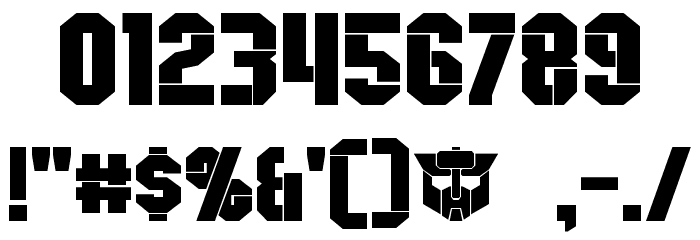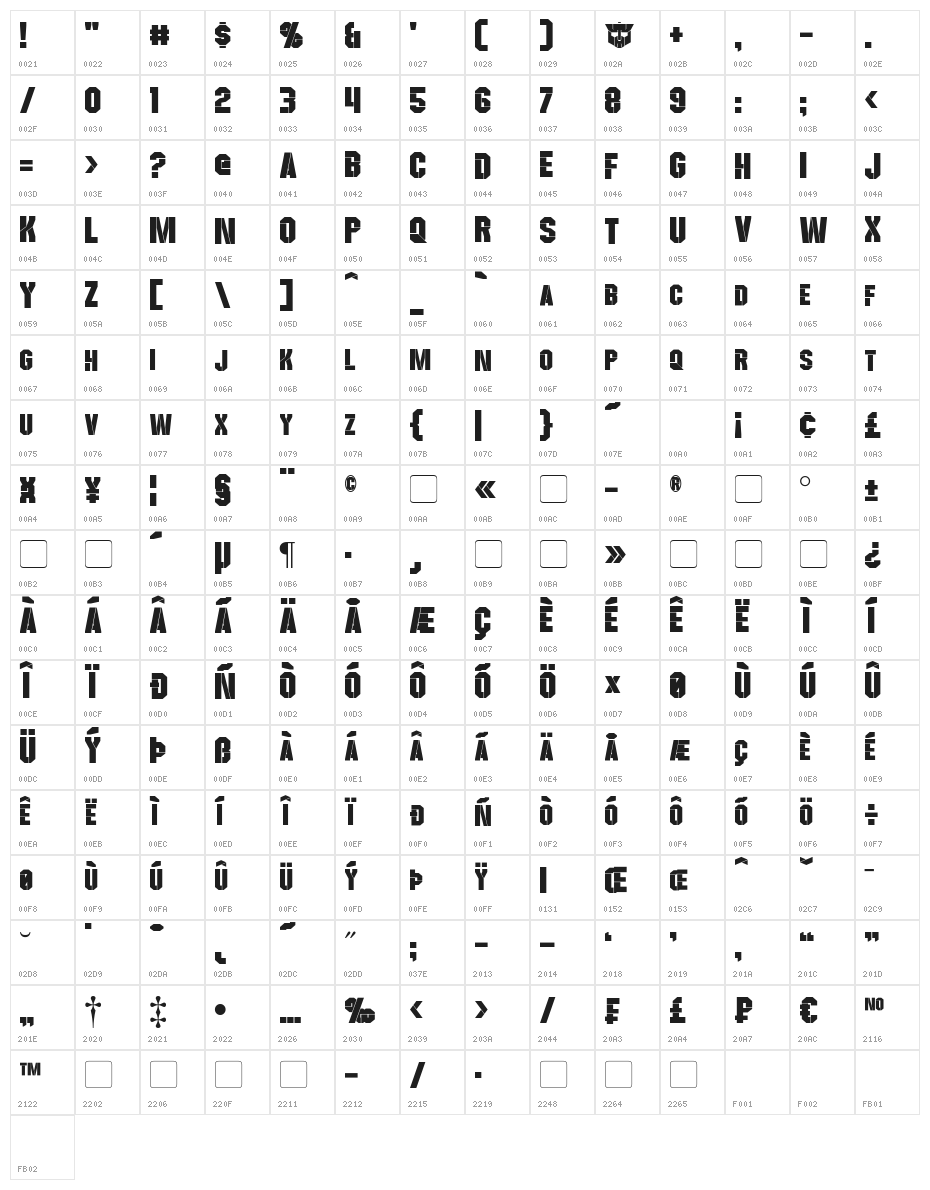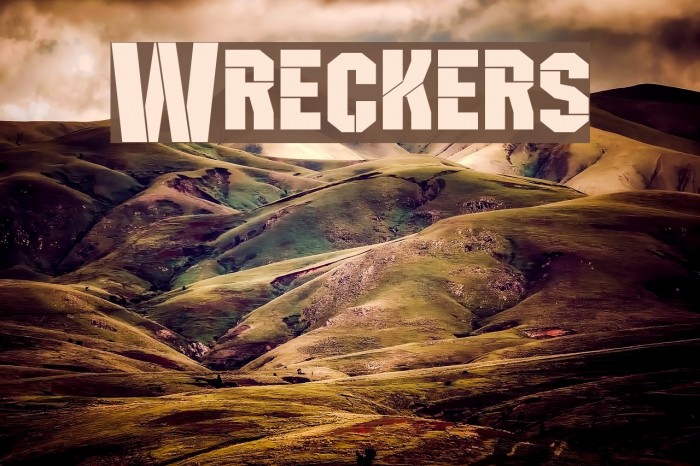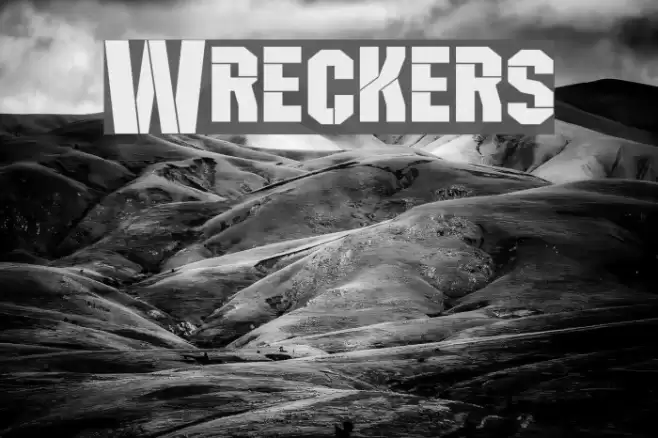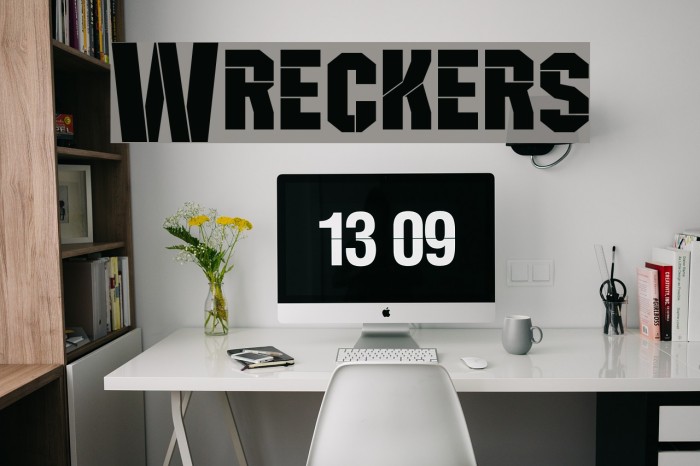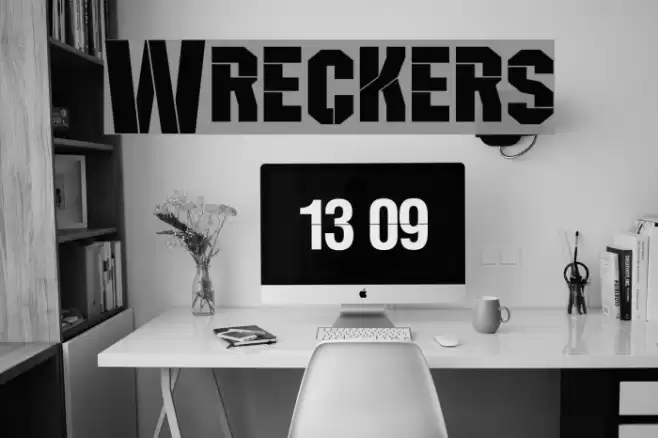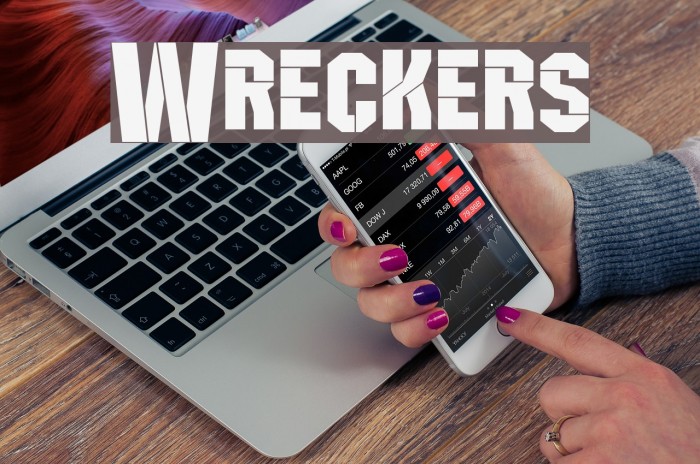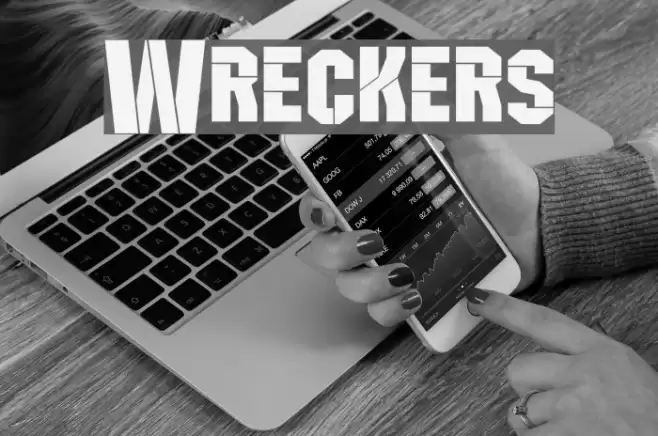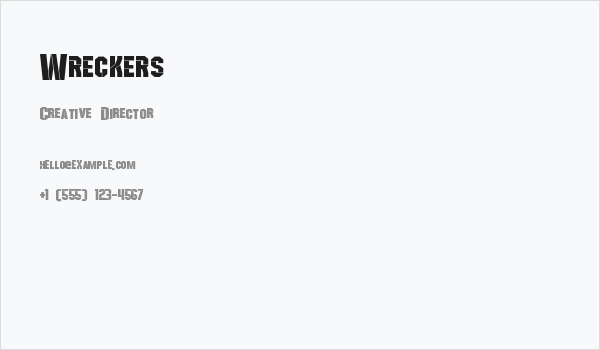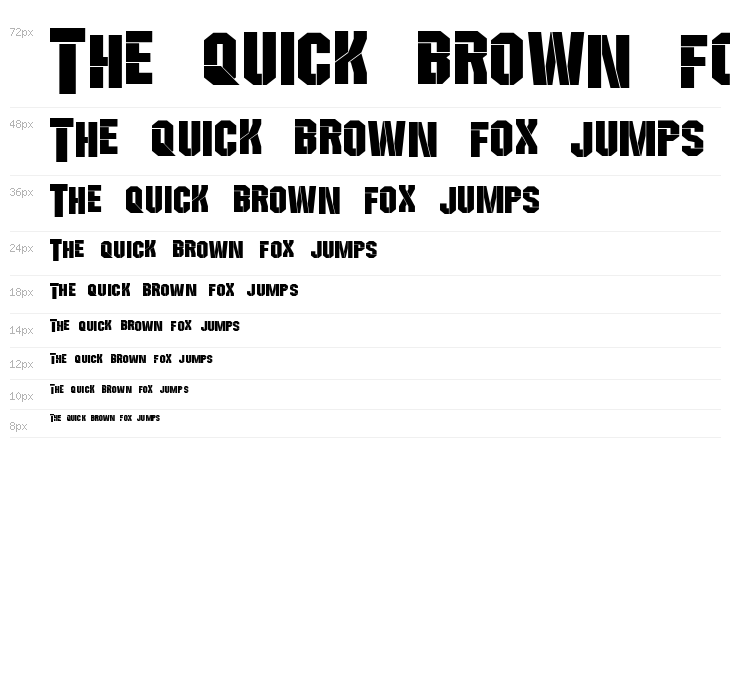
Wreckers Font
Wreckers Description
This font features a bold and geometric design with a strong, industrial feel. The characters are constructed with sharp angles and solid fills, creating a sense of strength and durability. The uppercase letters are particularly striking, with a blocky appearance that commands attention. The numbers and special characters maintain this robust style, ensuring consistency across all elements. The font's unique design makes it ideal for projects that require a bold statement, such as branding for heavy machinery, construction, or technology sectors. Its distinct style is both modern and reminiscent of industrial design, making it versatile for various creative applications.
| Overall Style | Modern, Industrial |
| Proposed Projects | Ideal for branding, logos, posters, and any project needing a strong, industrial look. |